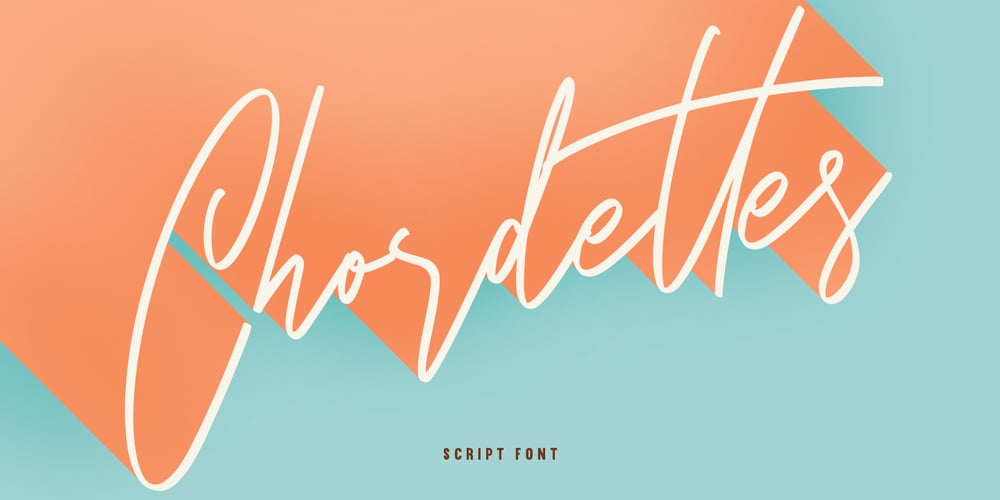
Chordettes Font Family was designed by Gilang Maulana and published by Maulana Creative. Chordettes contains 1 styles and family package options. Give your designs an authentic handcrafted feel. Chordette is perfectly suited to stationery, logos and much more.Many Thanks,MaulanaCreative